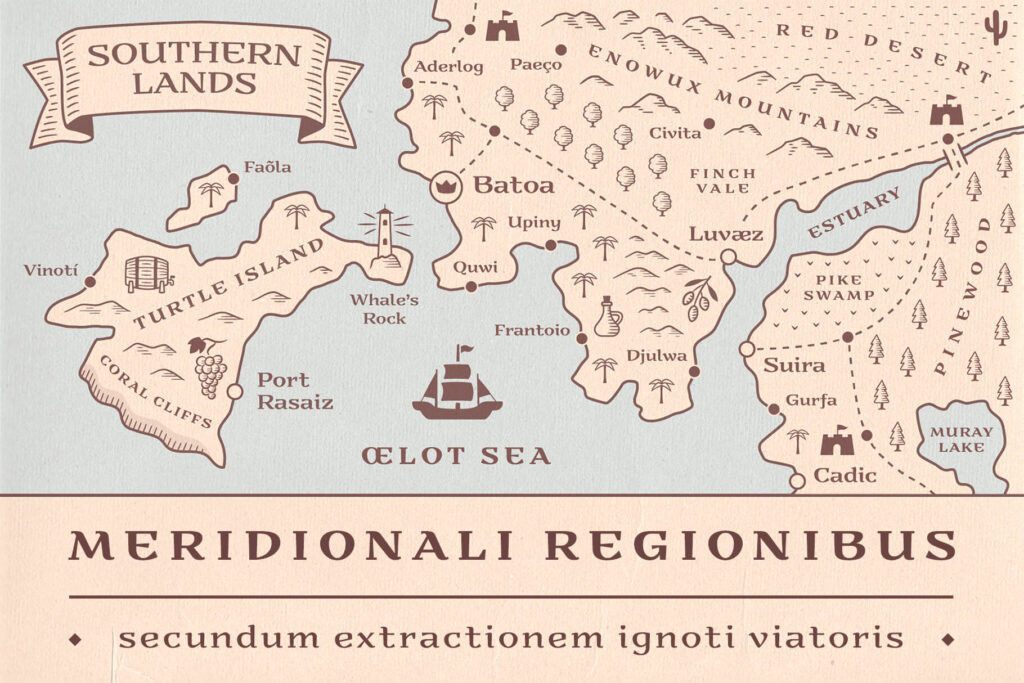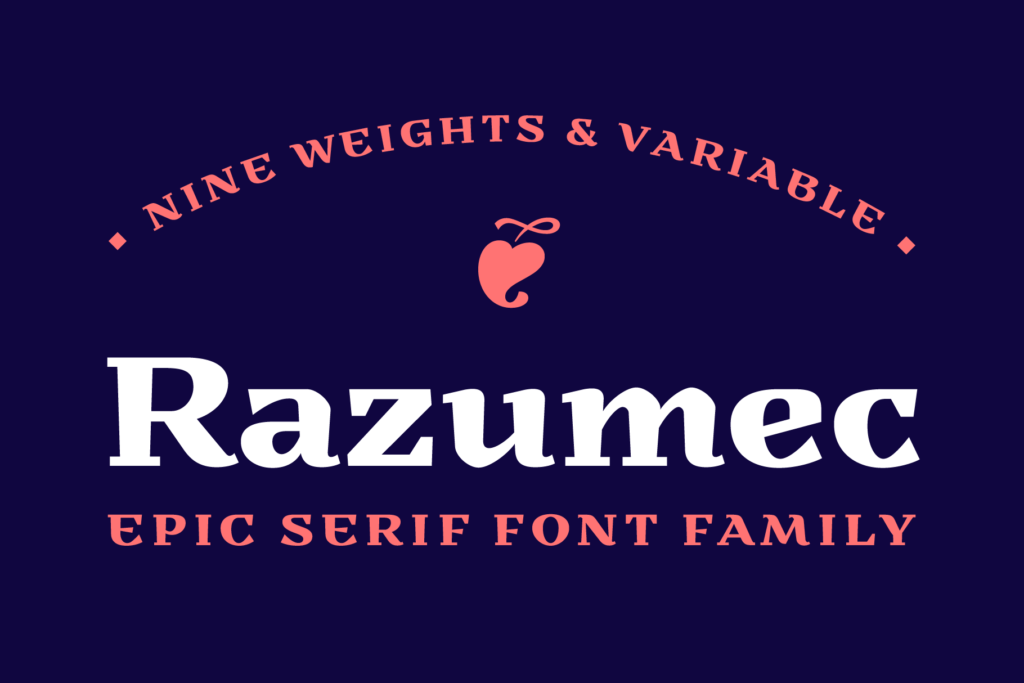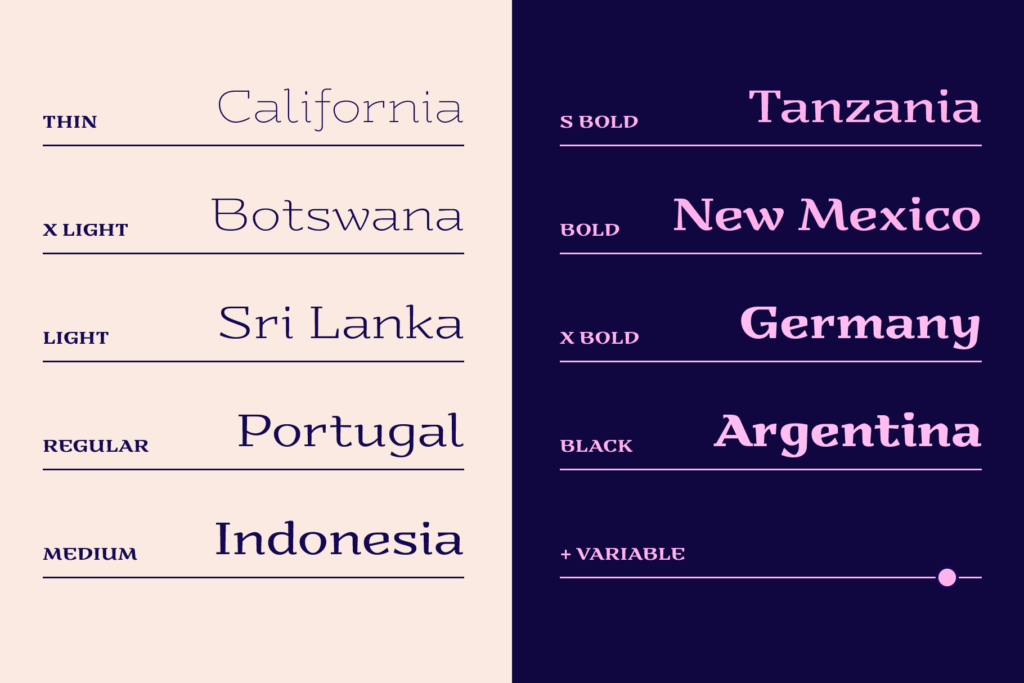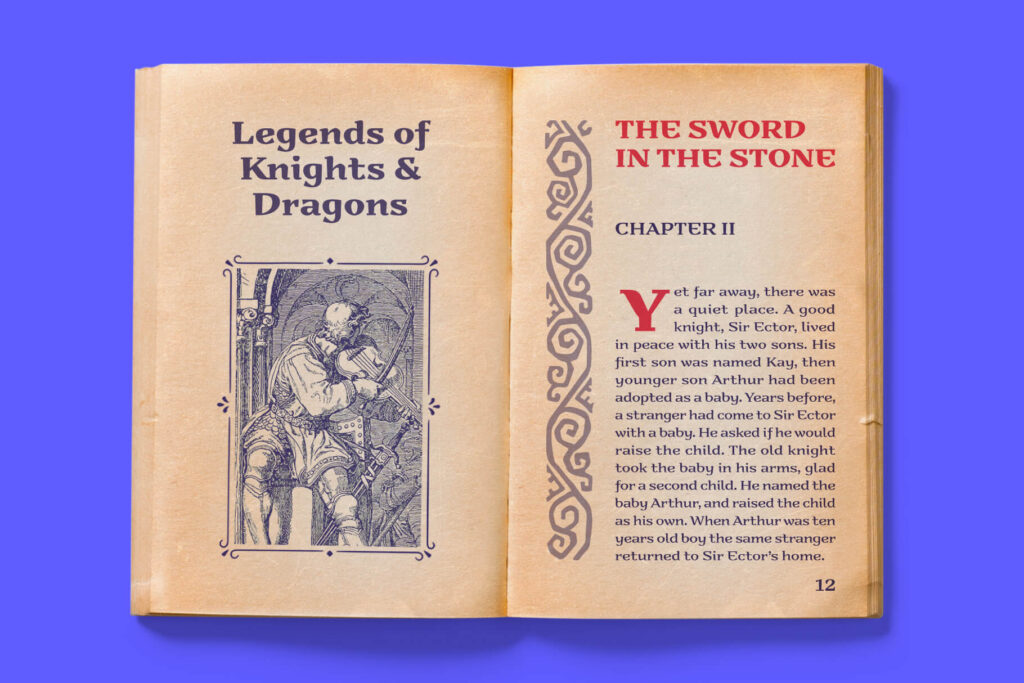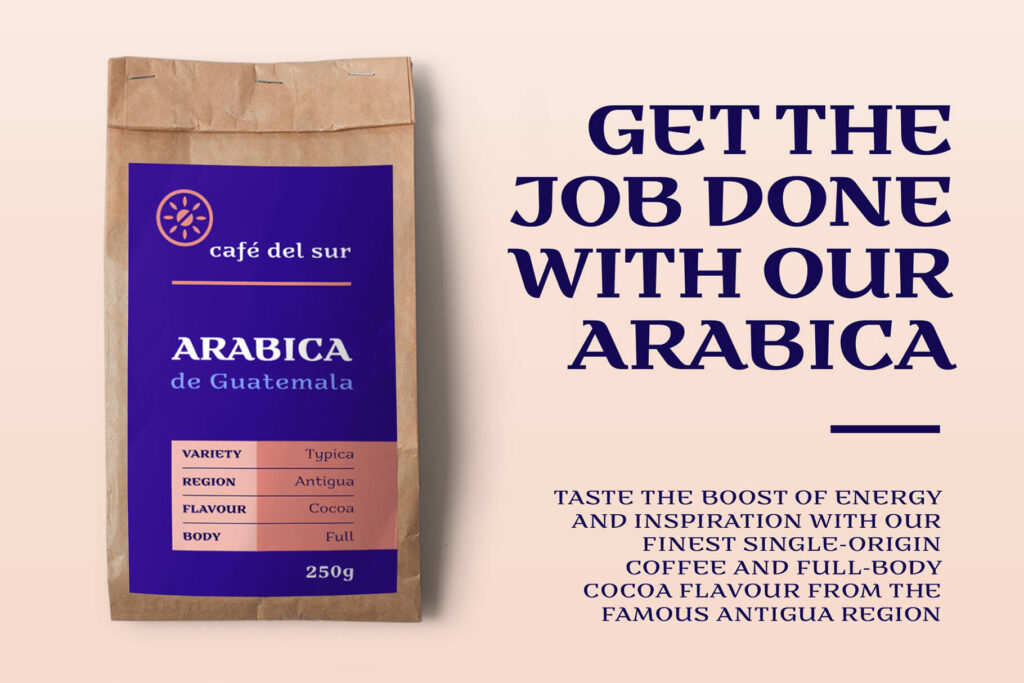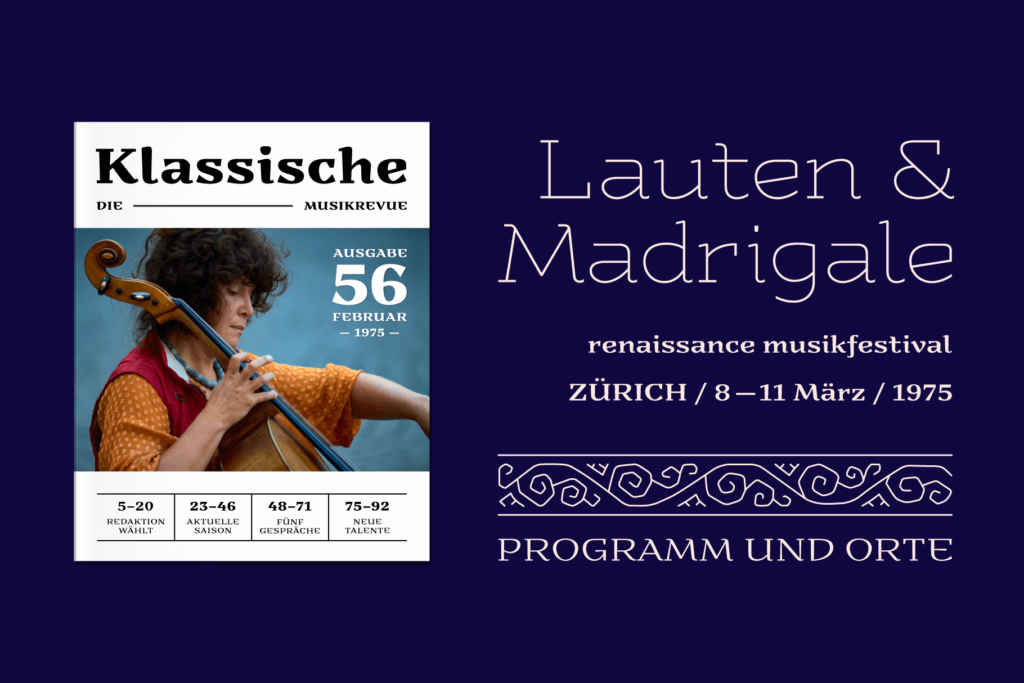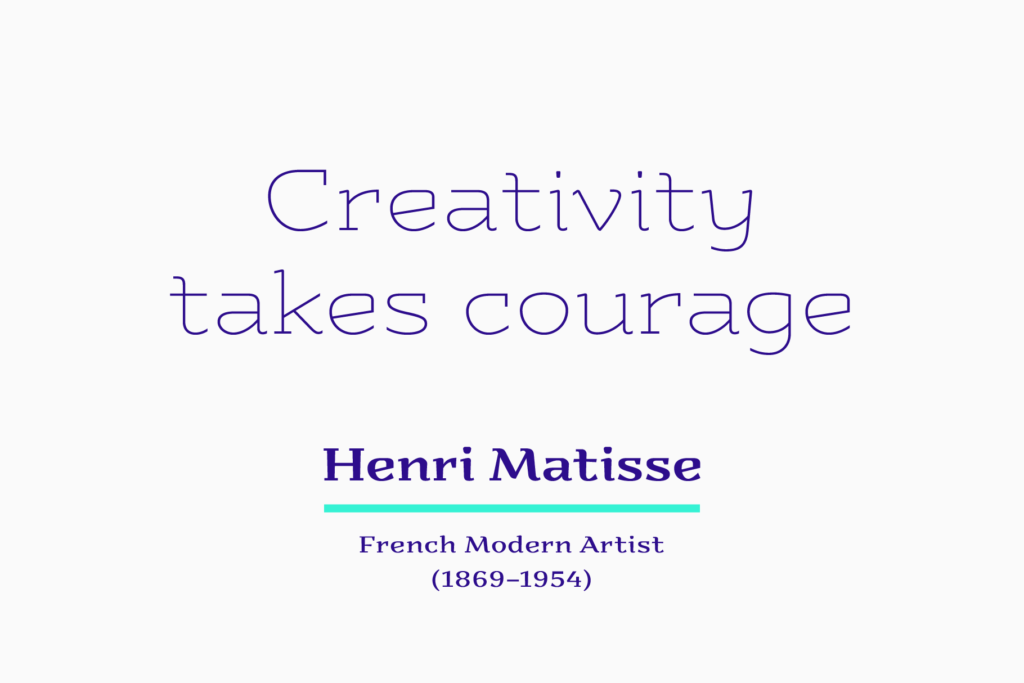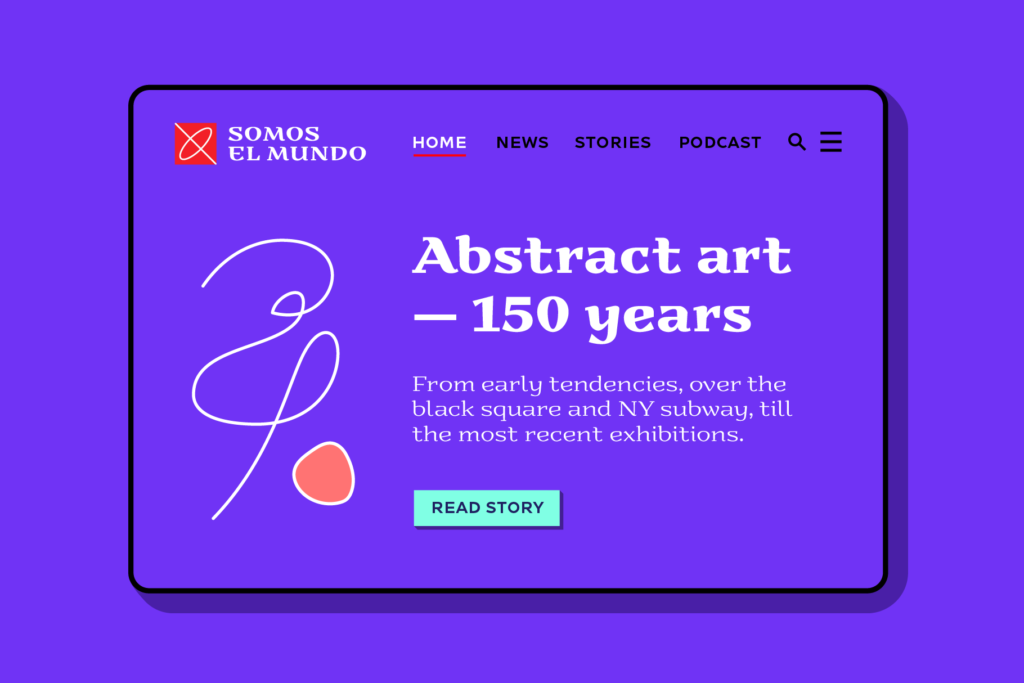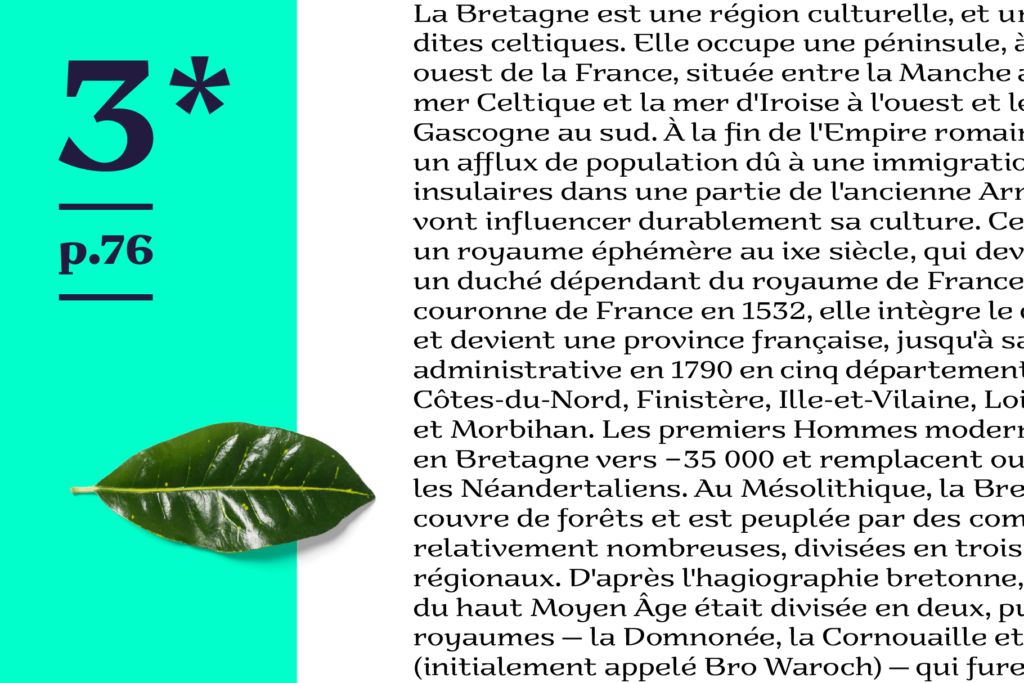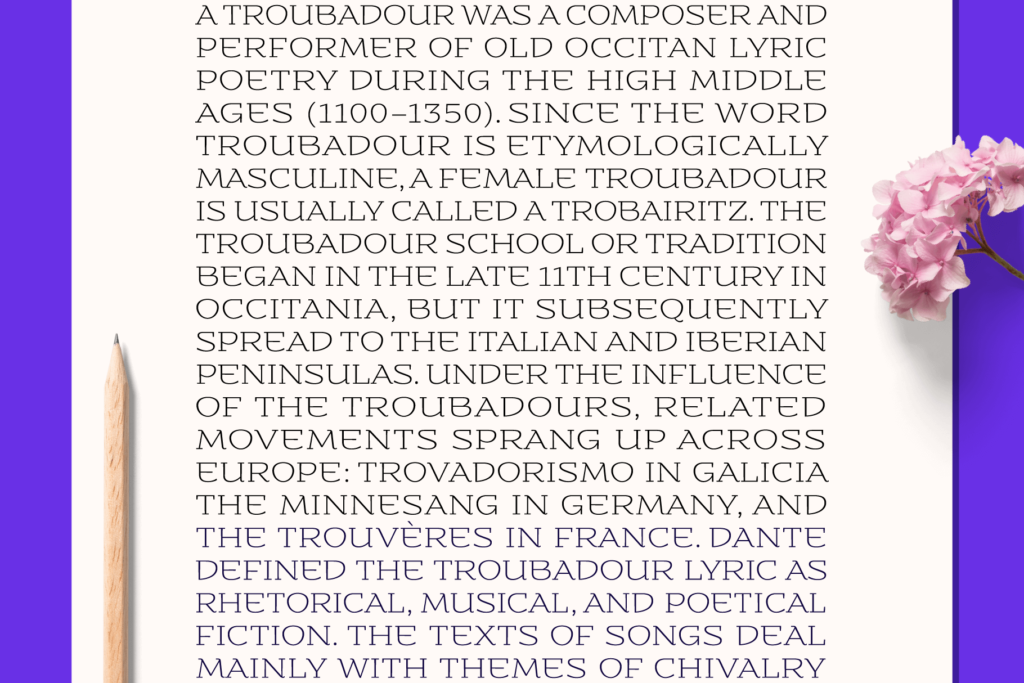
RAZUMEC
SERIF FONT FAMILY (9 STYLES + VARIABLE)
RAZUMEC is a carefully crafted display serif typeface with a highly unique personality. Its epic yet warm sentiment is established by a skillful blend of slab and wedge serifs, tapered stems, curves with raised center, and creative weight distribution. Proper pronunciation of these style elements influenced wide proportions and medium-to-high contrast.
Besides its main typology, it incorporates subtle allusions to a spectrum of typographic and visual traditions, from calligraphy, ordinary handwriting, blackletter, and medieval uncial script to the neoclassical Didone and industrial typefaces. All of these flavors are combined tastefully and consistently throughout the whole set.
With its rich visual identity, Razumec is primarily intended for display usage, as shown in the promo images. It’s perfect for branding and packaging. Fantastic for projects focusing on storytelling like fairy tales, epic fantasy books, and video games with historic or adventurous themes. Superb for theme magazines, quotes, headlines, museum and concert brochures.
On the other side, its authentic historical voice works great as a strong counterpart point in ultra-modern contemporary designs for print and screen. Web design, motion graphics, conceptual art, posters, and social media material are just the first few ideas.
The laborious production process focused on achieving a high level of classical typographic virtues rather than having an extensive character set. Beautiful stylistically consistent characters with balanced weight and width, high-quality curves, meticulous spacing and kerning, well-articulated diacritics, and punctuation were priorities. Special attention is given to solving problematic letter pairs through contextual alternates, which enable better spacing and smooth joints (hence the recommendation to always keep the “Contextual Alternates” feature on for this font. Learn more about it HERE.
Razumec is a small but well-executed and thoroughly tested font. Font family comprises nine weights plus variable font. Variable font lets you access all the weights through the single font file. In apps that support it, you will find a slider where you can pick any number from 100 to 900 corresponding to 800 possible font weights. Learn more about variable fonts and their support on the following two links: VF About and VF Support.